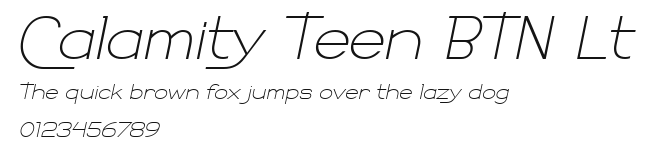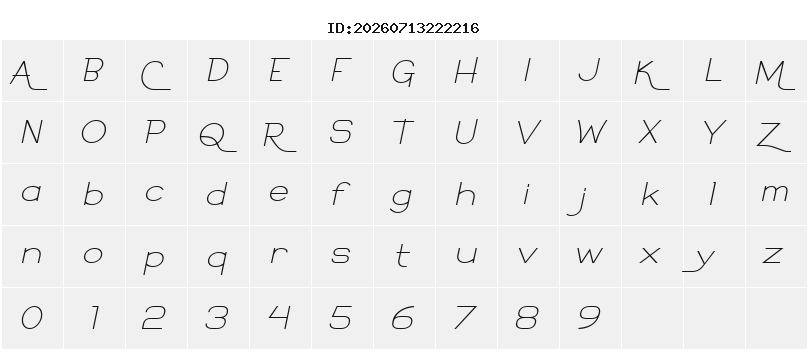
• Font Name: Calamity Teen BTN Lt
• Font Style: Oblique
• Font ID: Calamity Teen BTN Lt Oblique
• Full Font Name: Calamity Teen BTN Lt Oblique
• PostScript Name: CalamityTeenBTNLtOblique
About Calamity Teen BTN Lt.ttf
Calamity Teen BTN Lt.ttf is a modern, elegant sans-serif font designed for ultimate readability and visual harmony. Perfect for branding, headlines, web design, and print materials.